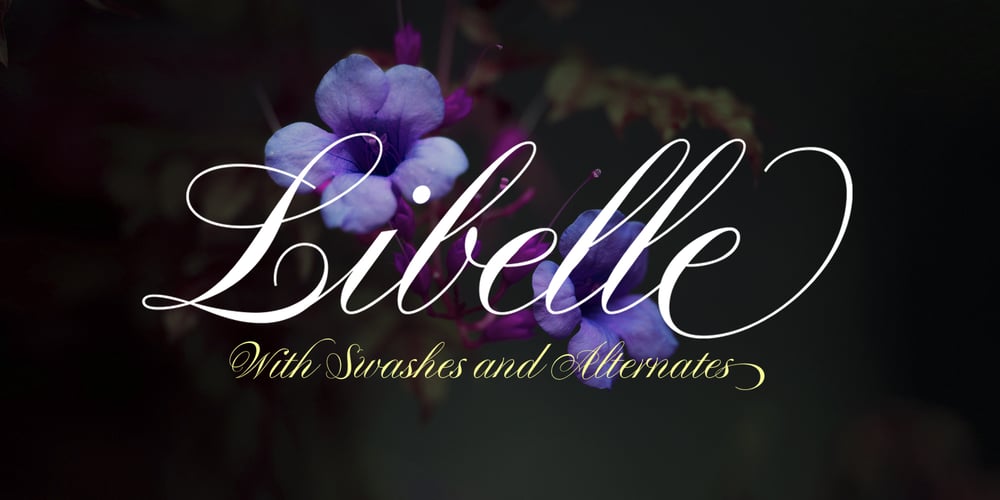
Libelle Font Family was designed by Jovica Veljovic and published by Linotype. Libelle contains 1 styles and family package options. Libelle is a 21st century English Copperplate Script typeface. Created by Jovica Veljović, a designer with decades of experience as a calligrapher, typeface designer, and professor, Libelle differentiates itself from other Copperplates Scripts because its letterforms are less mechanical. The hand of the calligrapher shows through the forms, breathing new life into this historic genre. Libelle includes approximately 400 extra glyphs, including alternate forms of many letters and special forms for the beginnings and ends of words. The font includes several stylistic sets, as well as ligatures and ornaments.